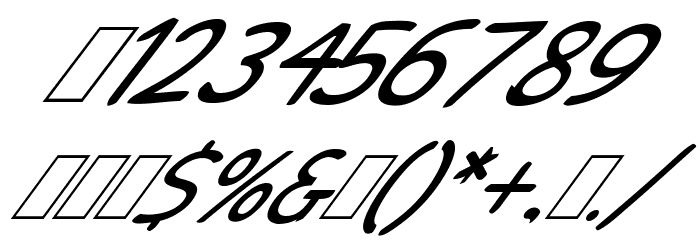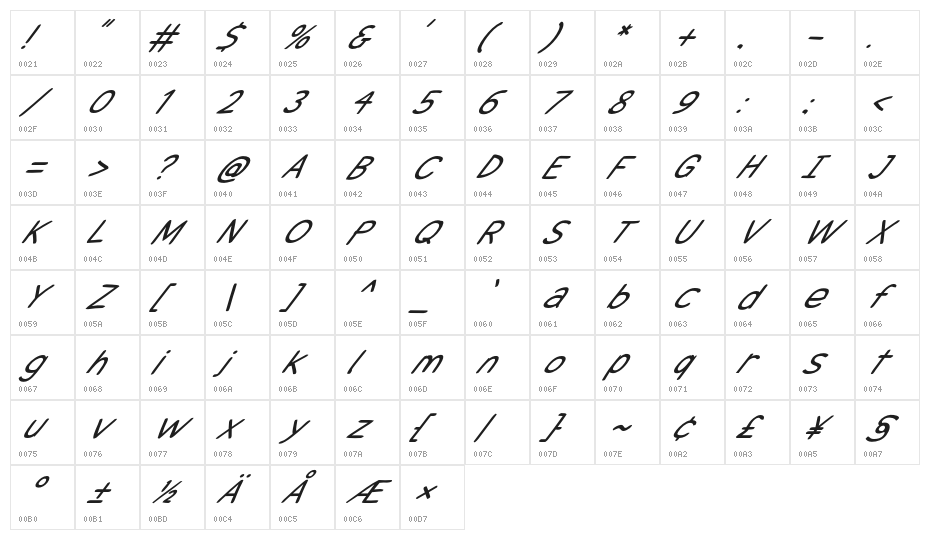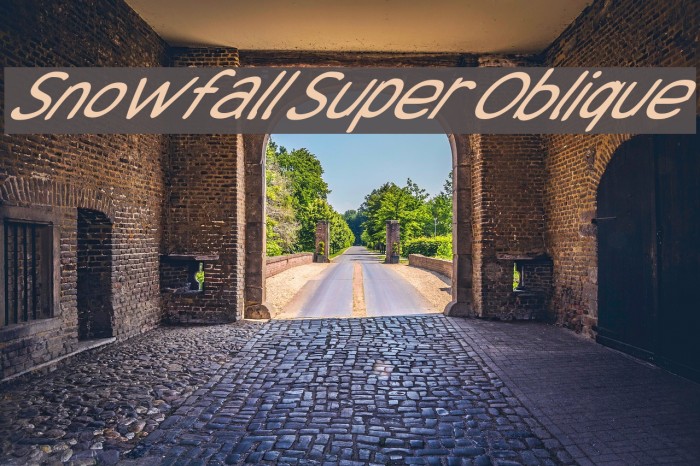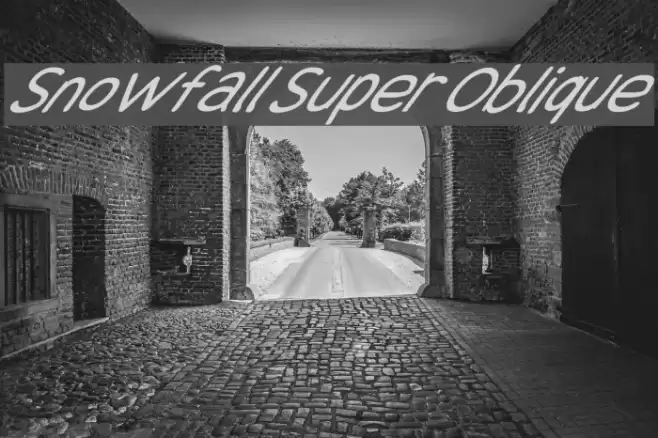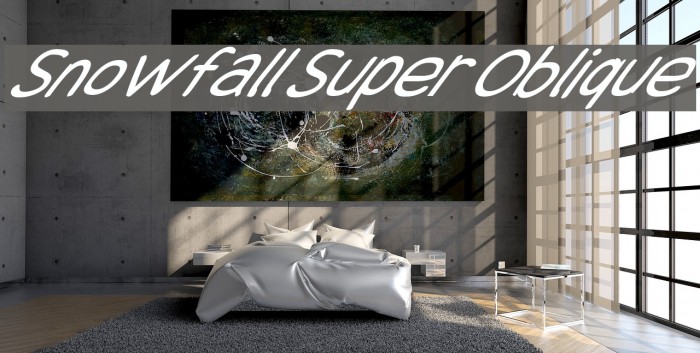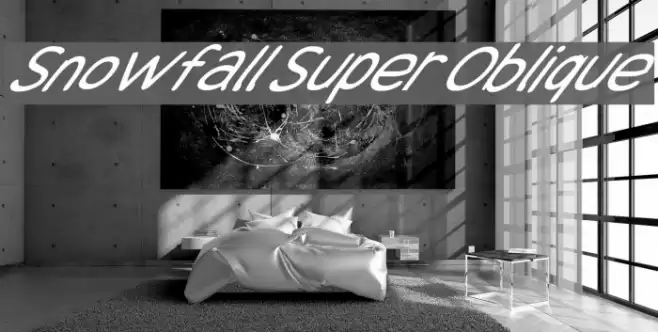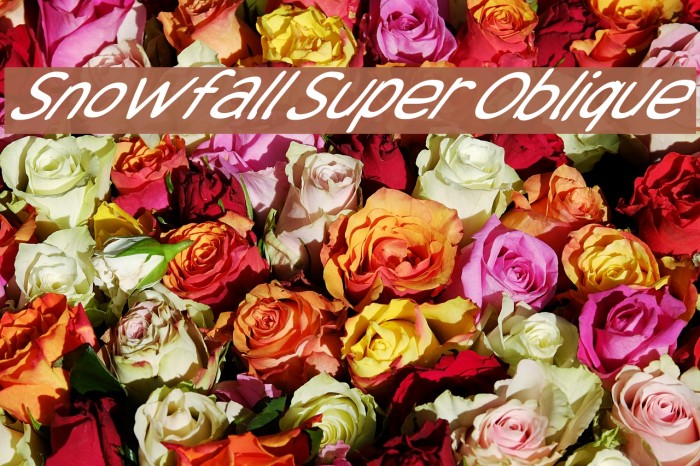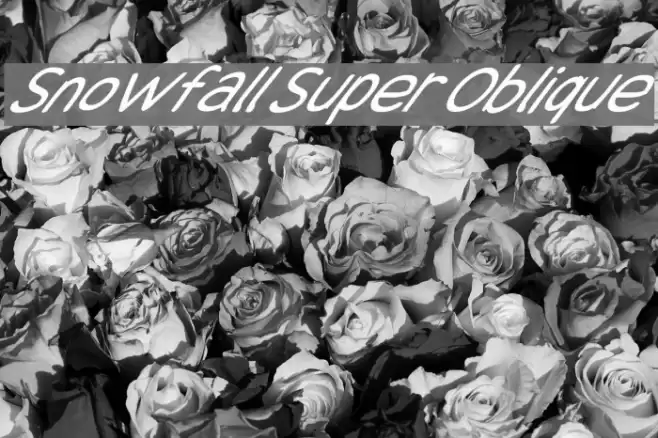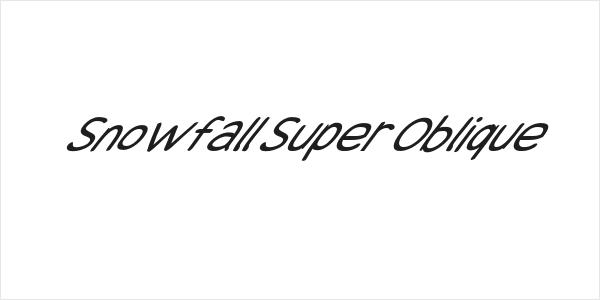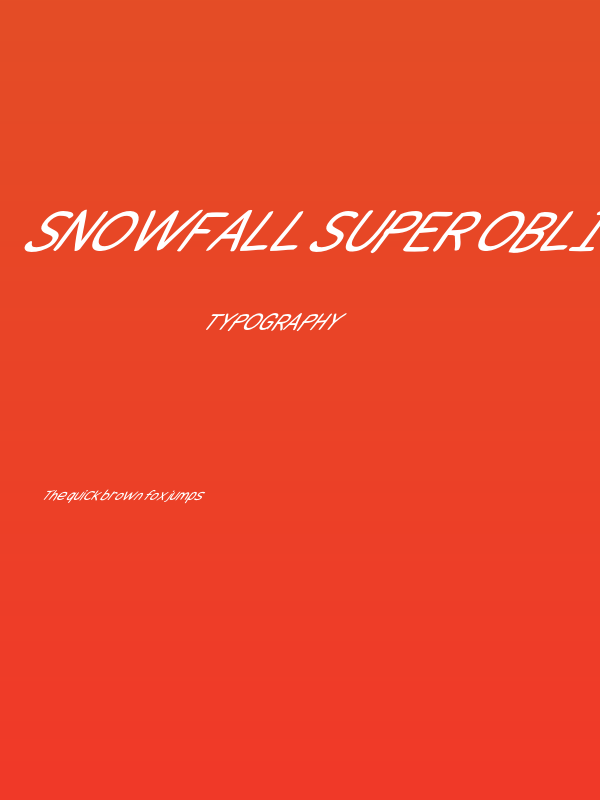
Snowfall Super Oblique Font
Snowfall Super Oblique Description
This font features an oblique style with a dynamic and energetic appearance. The letters are slanted, giving a sense of motion and speed. The strokes are smooth and slightly curved, providing a modern and sleek look. The uppercase and lowercase characters maintain a consistent style, with a moderate contrast in stroke thickness. The numerals and special characters follow the same slanted design, ensuring uniformity across all glyphs. This font is well-suited for projects that require a sense of movement or modernity.
| Proposed Projects | Ideal for sports branding, dynamic posters, modern advertisements, and digital media. |